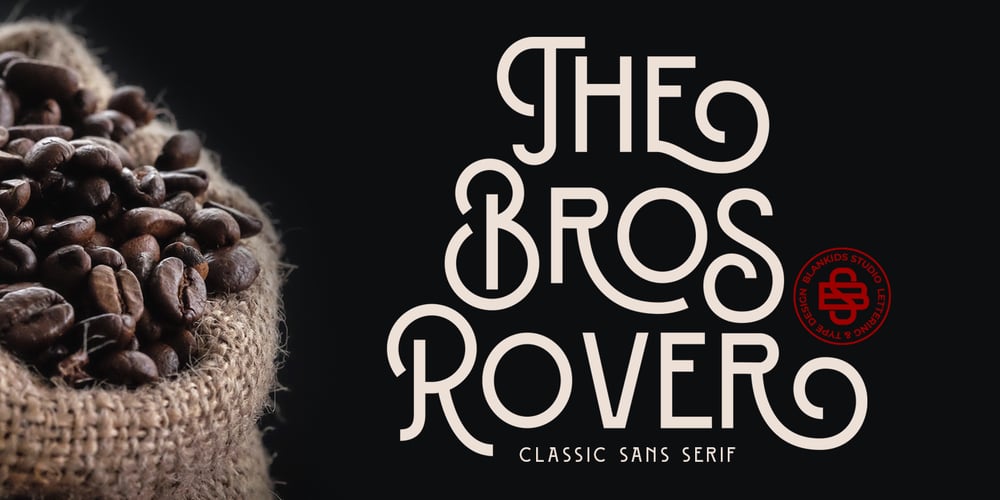
Bros Rover Font Family was designed by Bangkit Tri Setiadi and published by Blankids. Bros Rover contains 1 styles and family package options. Introducing a new font is Bros Rover Classic Sans Serif. Bros Rover good for logotype, poster, badge, wedding invitation, book cover, tshirt design, packaging and any more.